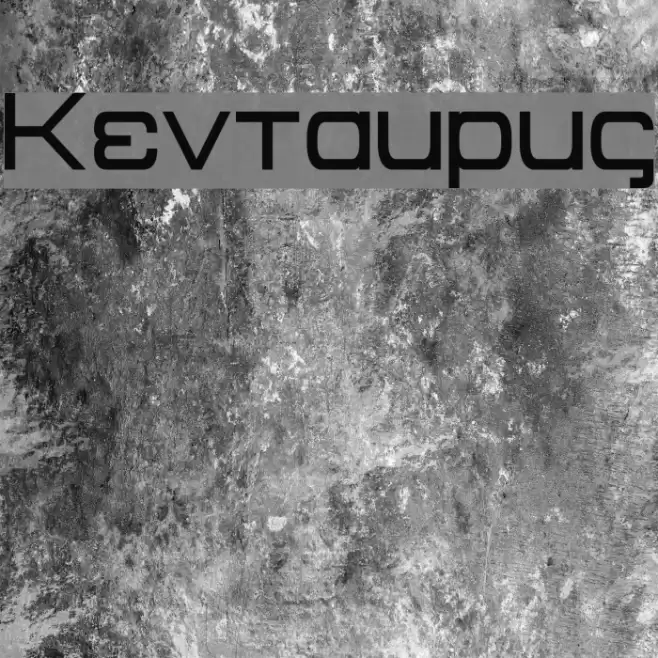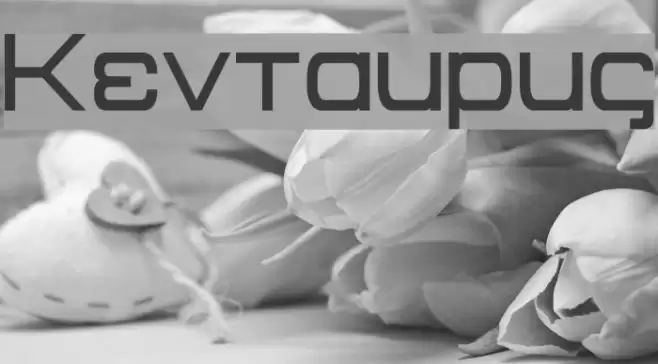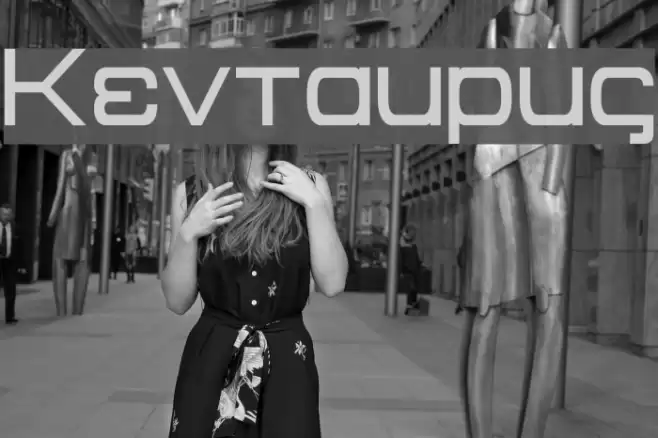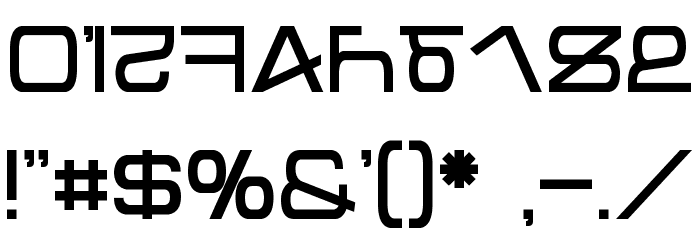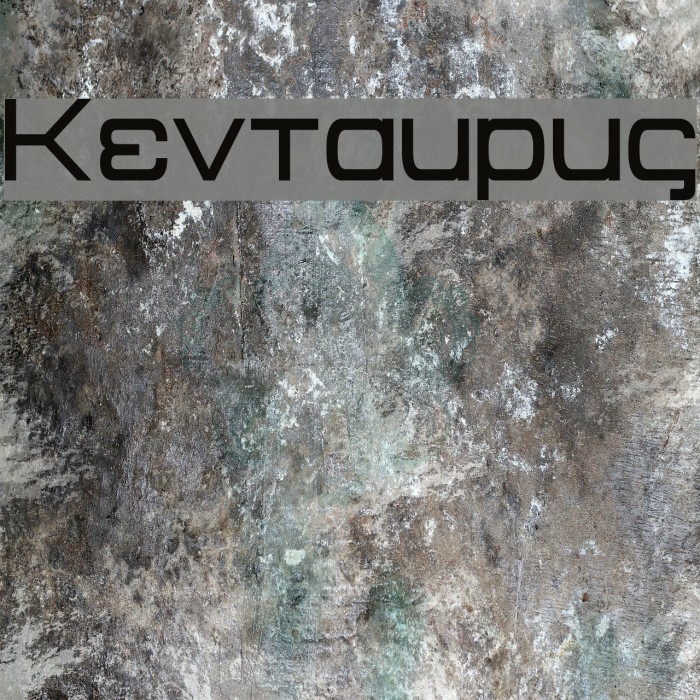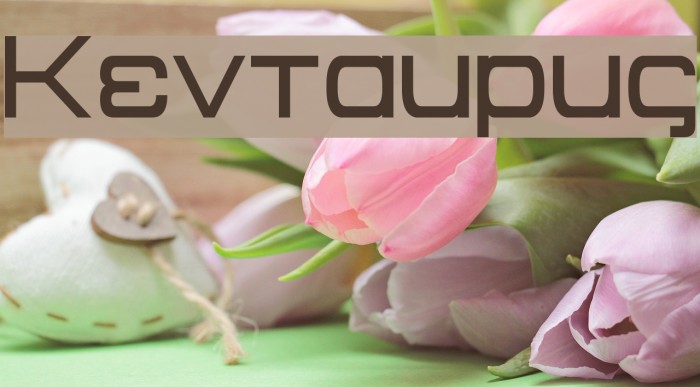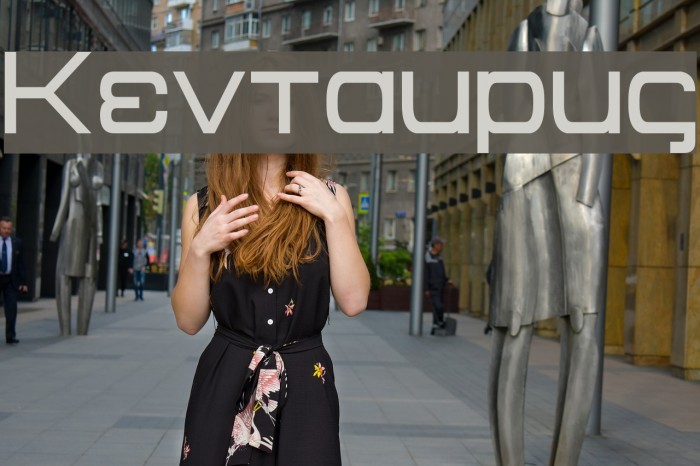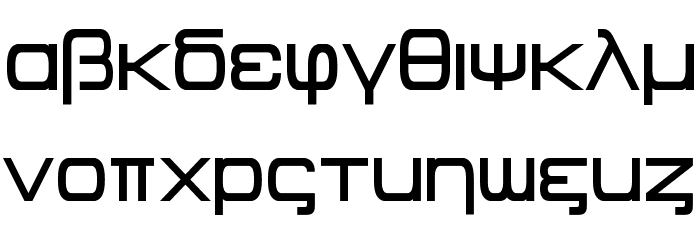
Kentaurus Font
Kentaurus Description
This font exhibits a modern and geometric style with a distinct angular design. The characters are constructed with clean lines and sharp edges, giving it a futuristic appearance. The uppercase letters are bold and prominent, while the lowercase letters maintain a consistent style with slightly rounded edges. The numerals and special characters follow the same geometric theme, ensuring uniformity across the entire character set. This font's unique structure makes it stand out, offering a blend of modernity and readability.
A modern, geometric font with angular and clean lines from Dingbats fonts.
- Proposed Projects: Ideal for technology branding, sci-fi themed projects, modern posters, and digital interfaces.